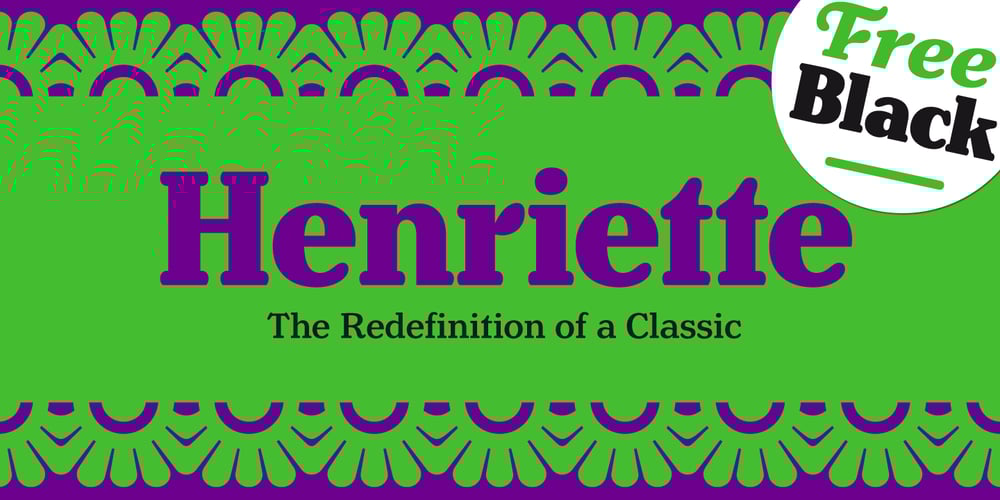
Henriette
Henriette font
Henriette Font Family was designed by Michael Hochleitner and published by Typejockeys. Henriette contains 31 styles and family package options. The redefinition of a classic In the 1920s the Viennese government decided to standardize the street signs across the city. A typeface was especially constructed for the purpose. It was available in a Heavy and a Bold Condensed version, to support short street names as well as longer ones. As the years went by, the typeface was adopted and redrawn by several enamel factories. These adaptations lead to variations on the design, and to the fact that there isn’t a Viennese street sign font but 16 – in part severely – different versions. Henriette is not a digitization of any of those versions; rather, it is influenced by all of them. The italic versions are completely original and designed to accompany the Roman.